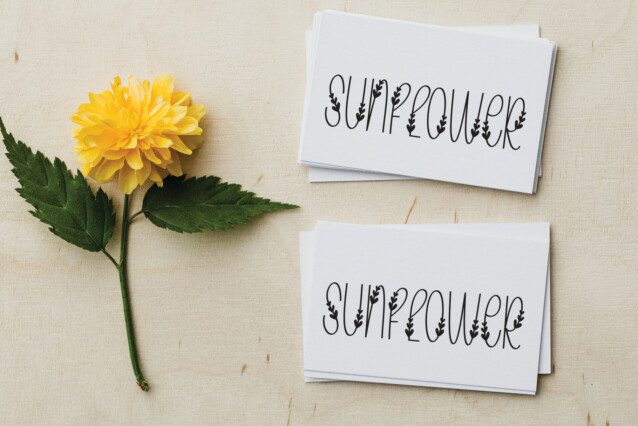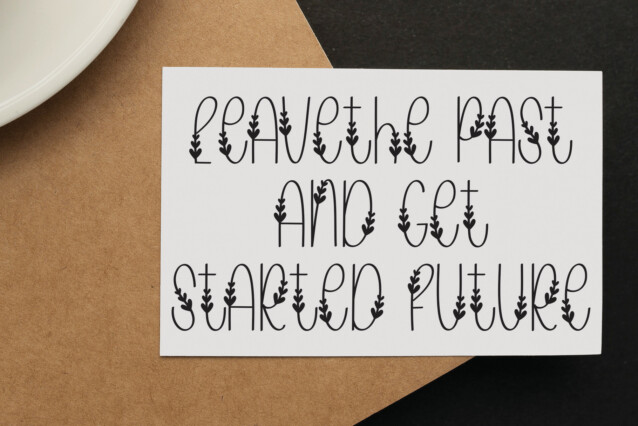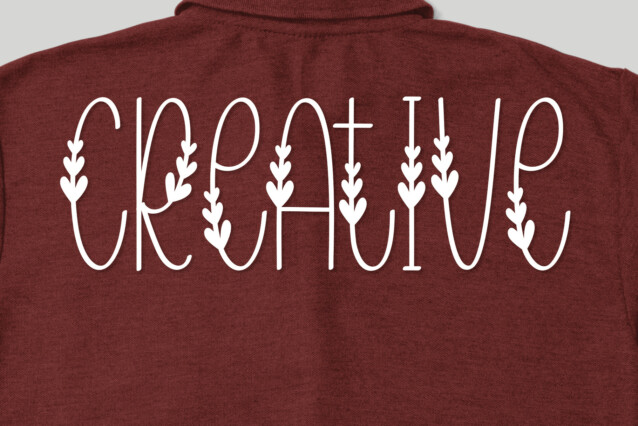
Valentines Display Font
Valentines Display Font is a cute and romantic handwritten decorative font. This original look will appeal to a wide range of crafty ideas, from letterheads and titles to stationery.